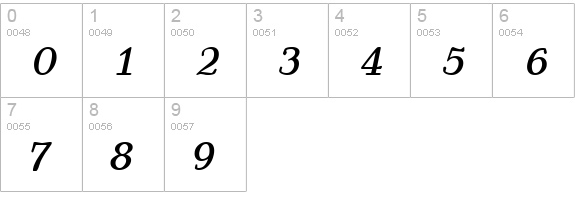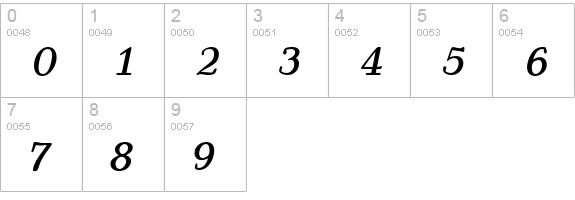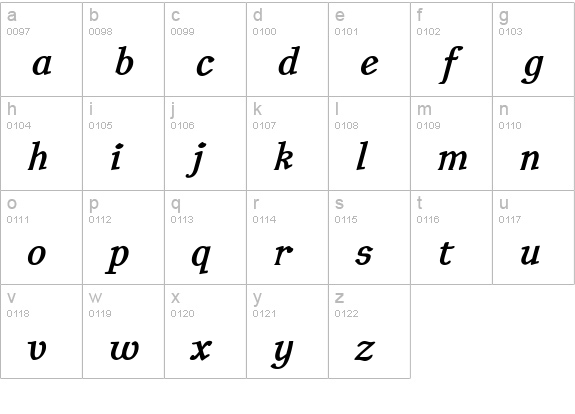
BetterEuroika BoldItalic Font Details
BetterEuroika BoldItalic is a striking and dynamic font that exudes a sense of modernity and sophistication. Its bold and italic design commands attention and adds a touch of elegance to any project. The sleek curves and sharp angles of this typeface make it perfect for creating eye-catching headlines, titles, and branding materials. What sets BetterEuroika BoldItalic apart is not only its visually appealing aesthetics but also its versatility. Whether used for print or digital media, this font adapts effortlessly to various design contexts, making it a valuable asset for graphic designers, marketers, and creatives alike. And the best part? BetterEuroika BoldItalic is available for free download at FontsMarket.com. This means you can easily access and use this high-quality font in your projects without any cost. Don't miss out on the opportunity to elevate your designs with BetterEuroika BoldItalic – download it now and bring your creative vision to life!